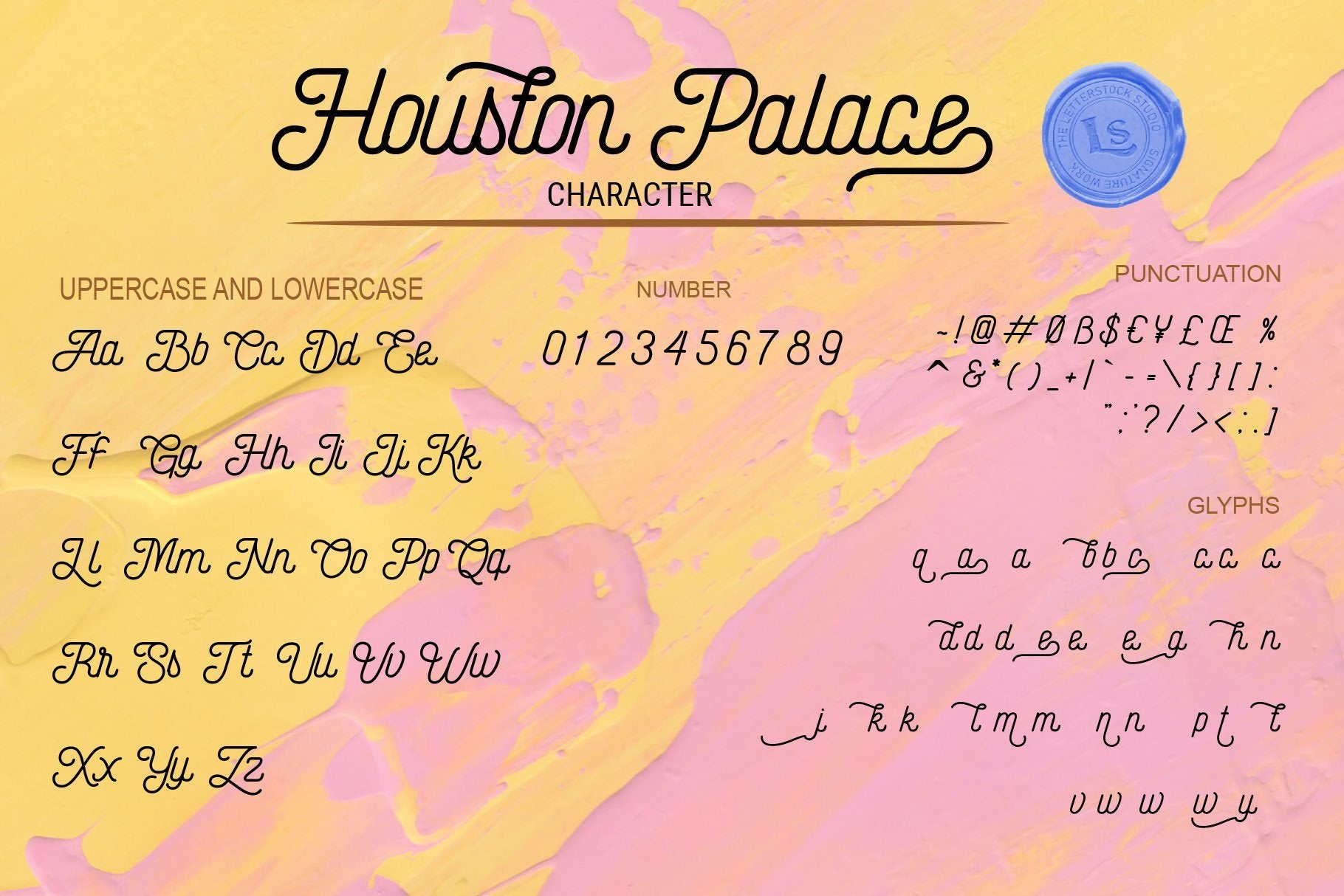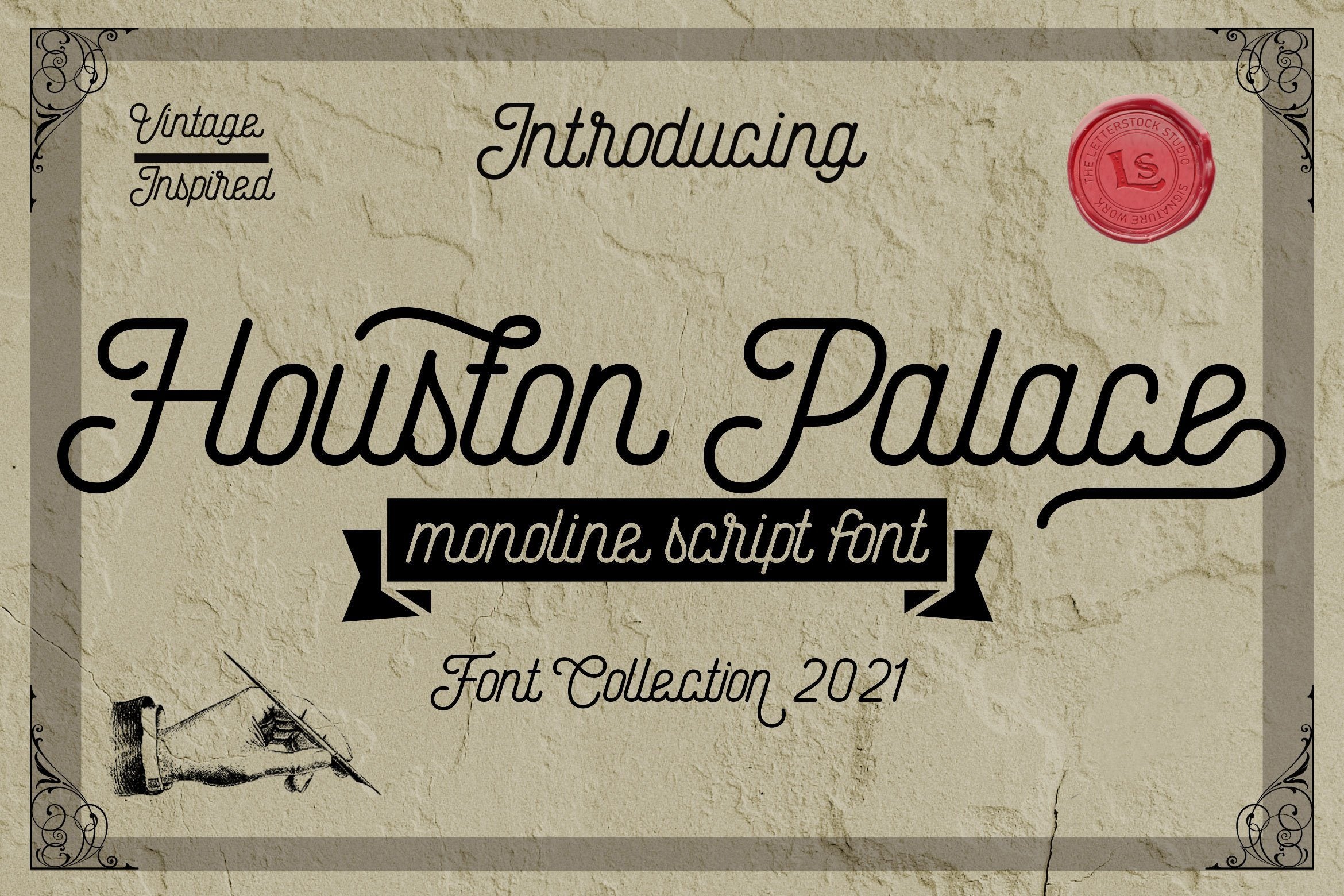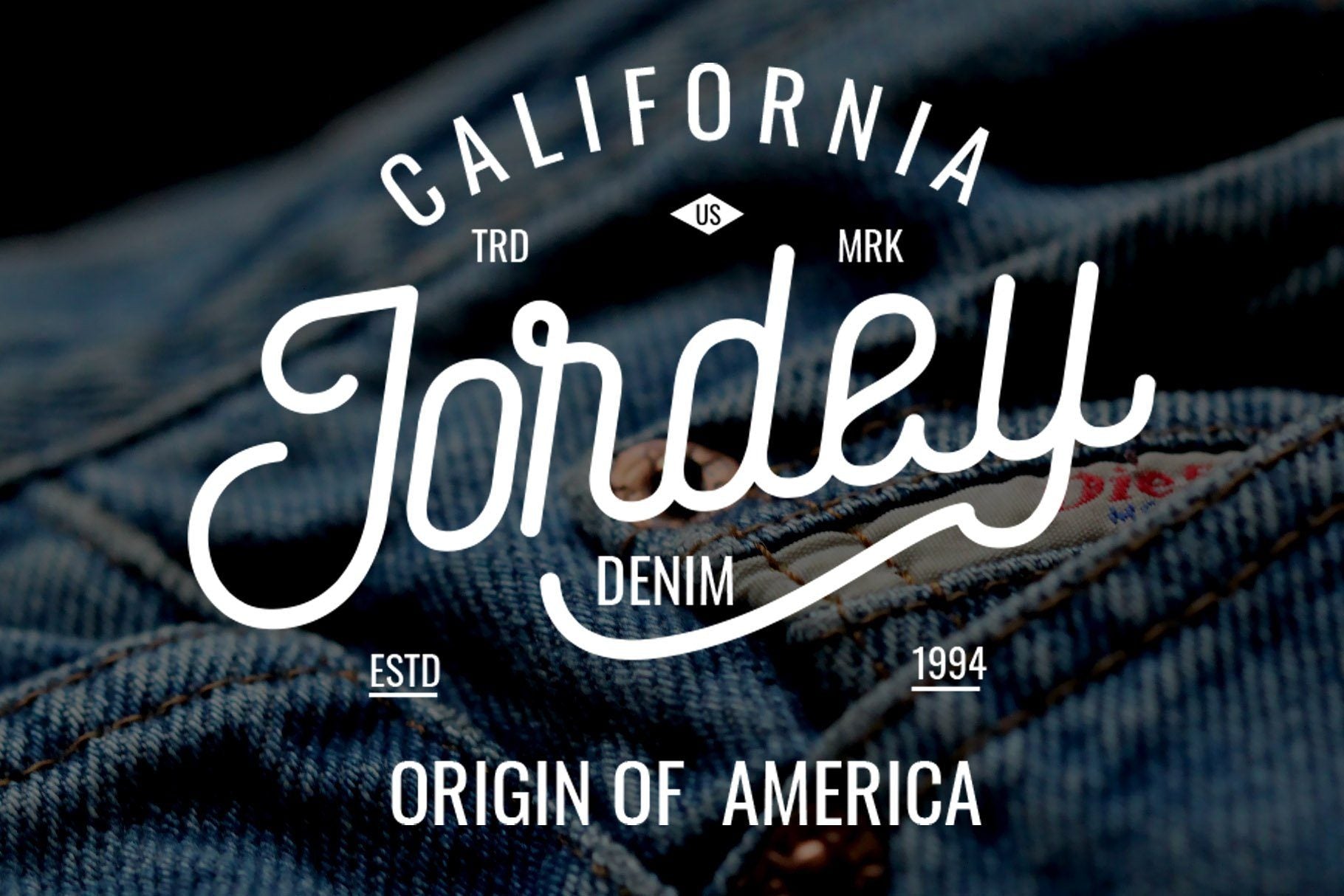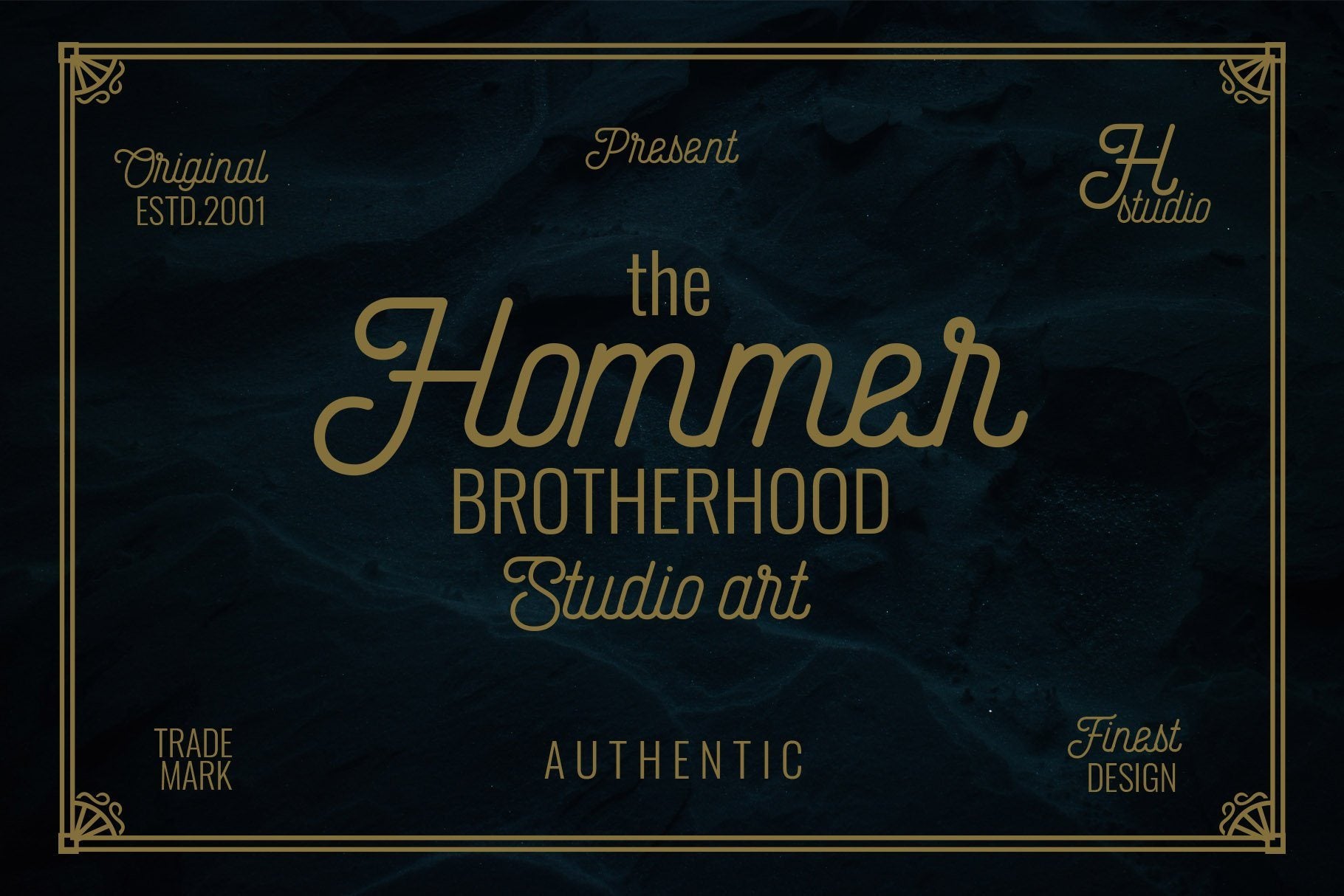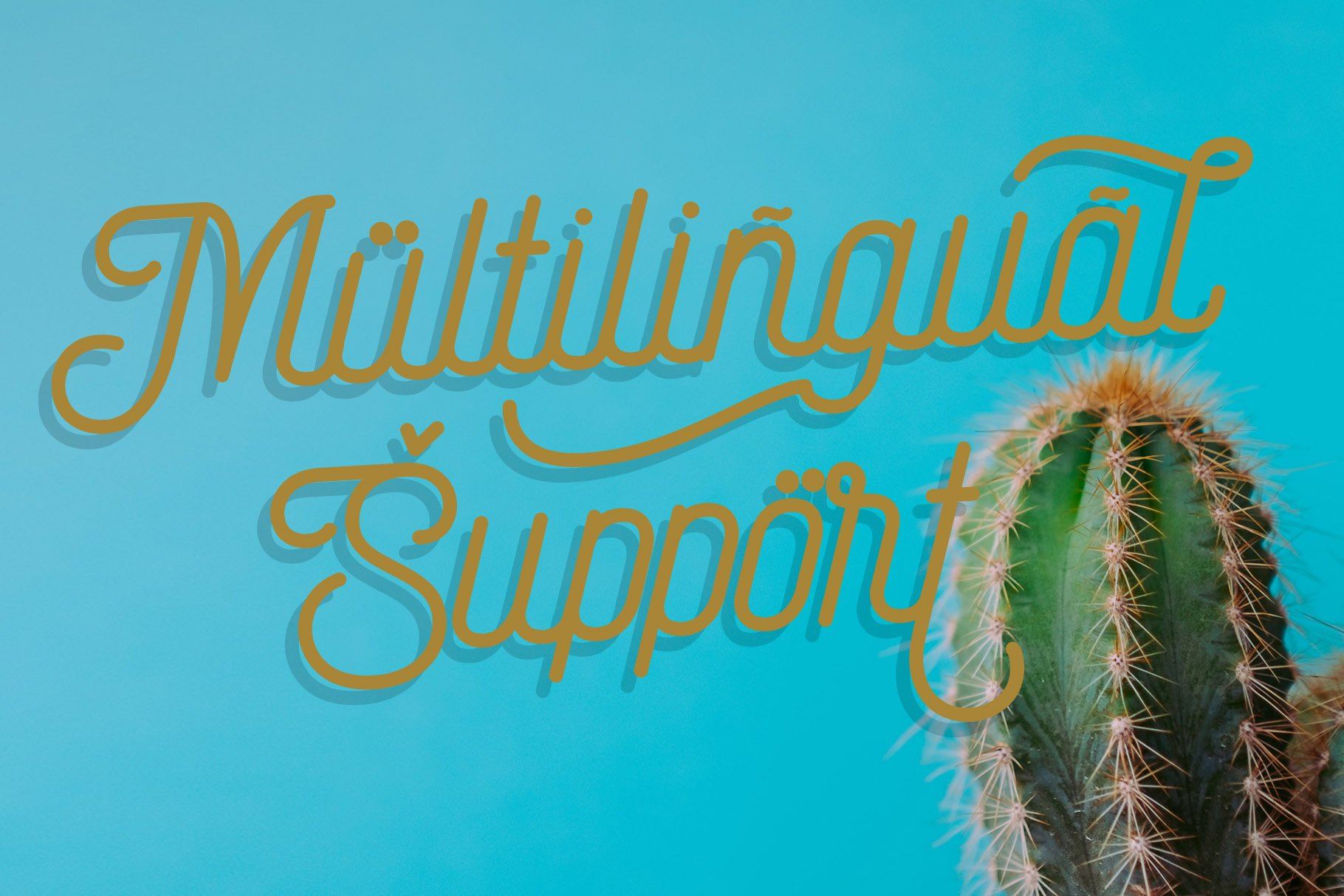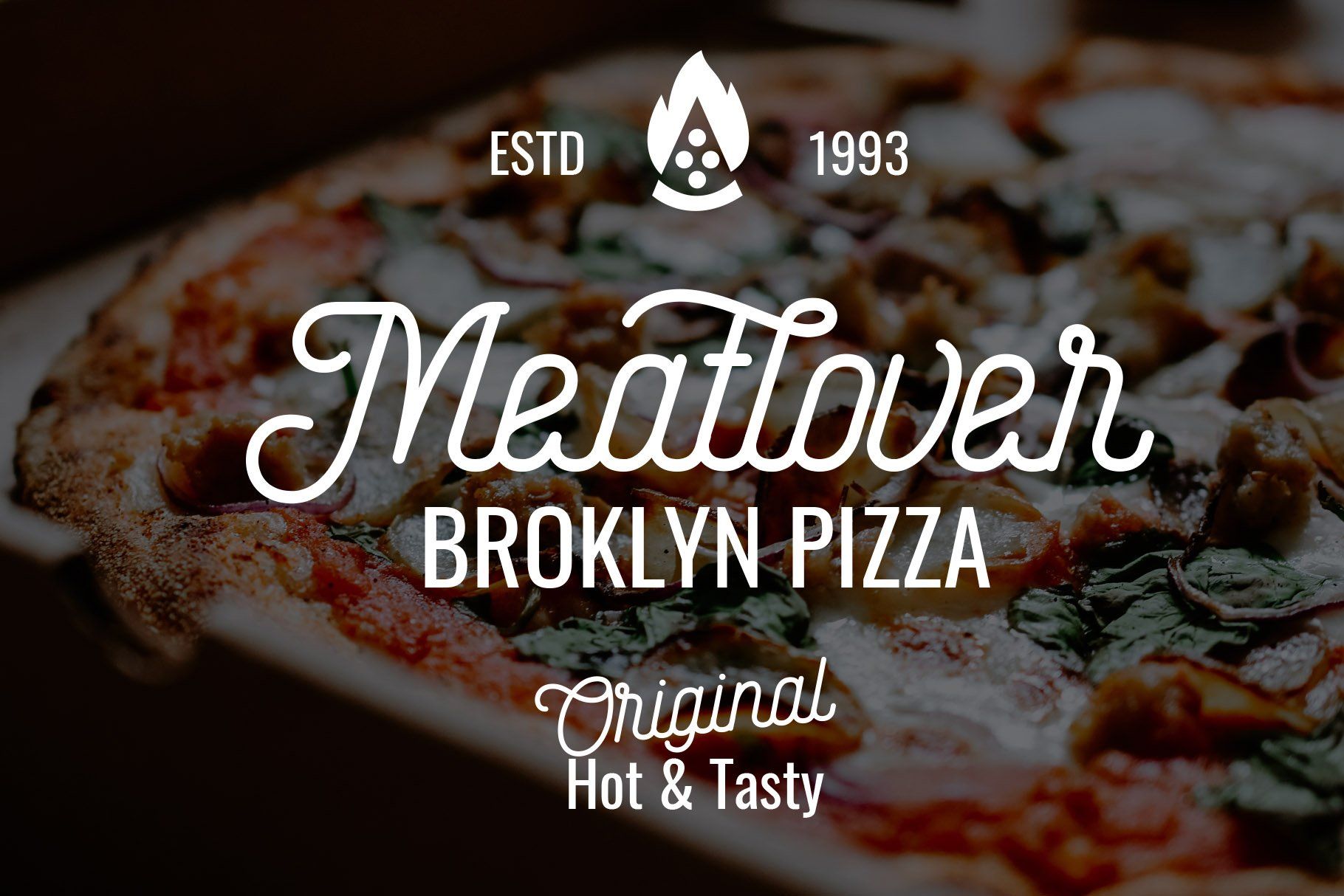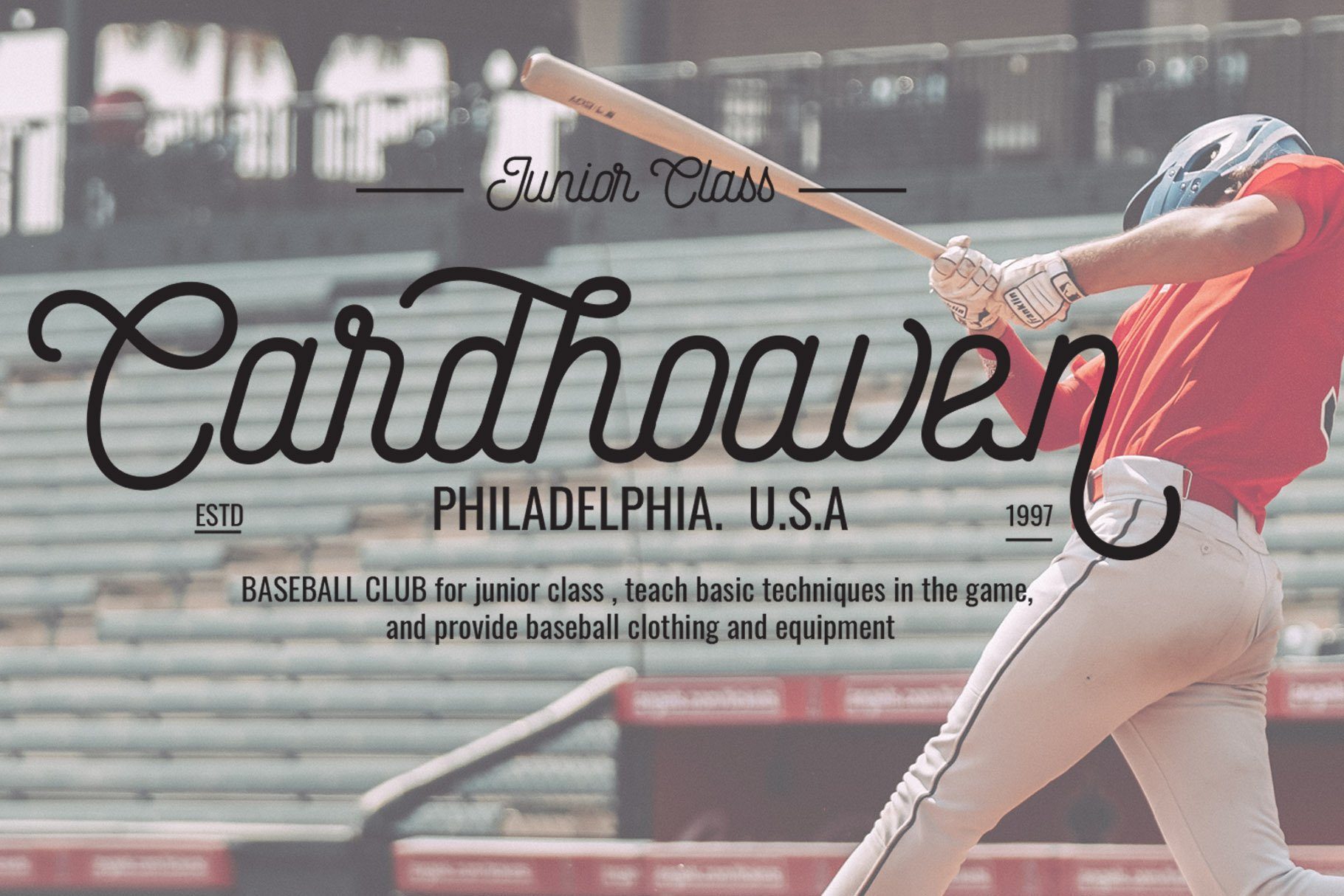
Houston Palace
About Houston Palace
**Houston Palace Font** This pair was inspired by the retro Motorbike poster design that i saw on some coffee shop, It was crafted by hand specially to add natural handmade feeling in its brand identity than i make it clean with pentool. **Opentype features** Houston palace font has 214 character set included Houston palace Font is very good looking in vintage logo, retro labels, product packaging, invitations, advertising and others. **What includes** •              Houston palace TTF file •              Houston palace OTF file •              Houston palace WOFF file •              Multilingual support (Western European characters). This fonts works with folowing languages: Afrikaans, Albanian, Asu, Basque, Bemba, Bena, Chiga, Cornish, Danish, English, Estonian, Filipino, Finnish, French, Friulian, Galician, German, Gusii, Indonesian, Irish, Italian, Kabuverdianu, Kalenjin, Kinyarwanda, Low German, Luo, Luxembourgish, Luyia, Machame, Makhuwa-Meetto, Makonde, Malagasy, Malay, Manx, Morisyen, North Ndebele, Norwegian Bokmål, Norwegian Nynorsk, Nyankole, Oromo, Portuguese, Romansh, Rombo, Rundi, Rwa, Samburu, Sango, Sangu, Scottish Gaelic, Sena, Shambala, Shona, Soga, Somali, Spanish, Swahili, Swedish, Swiss German, Taita, Teso, Vunjo, Zulu Thank you for using this font. LS